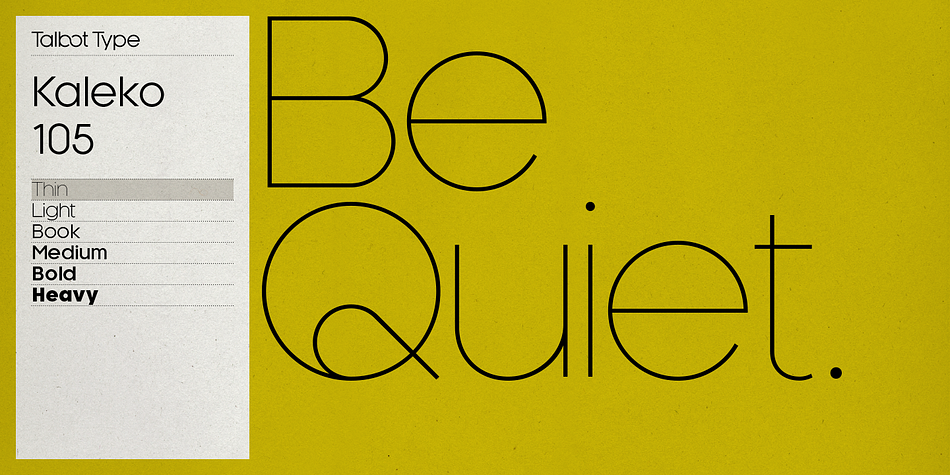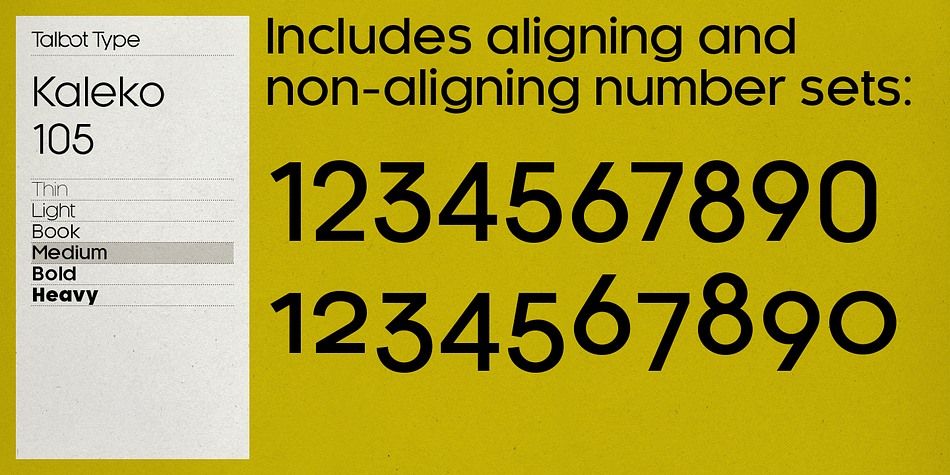
Kaleko 105
Kaleko 105 is a sans serif font family. This typeface has twelve styles and was published by Talbot Type.
Kaleko 105 is inspired by the classic, geometric sans-serifs such as Gill Sans, but has shallower ascenders and descenders for a more compact look. It’s a well-balanced, versatile, modern sans, highly legible as a text font and with a clean, elegant look as a display font at larger sizes.
The Kaleko 105 family comprises of six weights and is closely related to Kaleko 205. The most notable differences between the two variations are the single-story lower case a and g in Kaleko 105, where they are two-story in Kaleko 205.
Kaleko 105 features both aligning and non-aligning (old style) numerals and includes an extended character set, to offer accented characters for Central European languages.